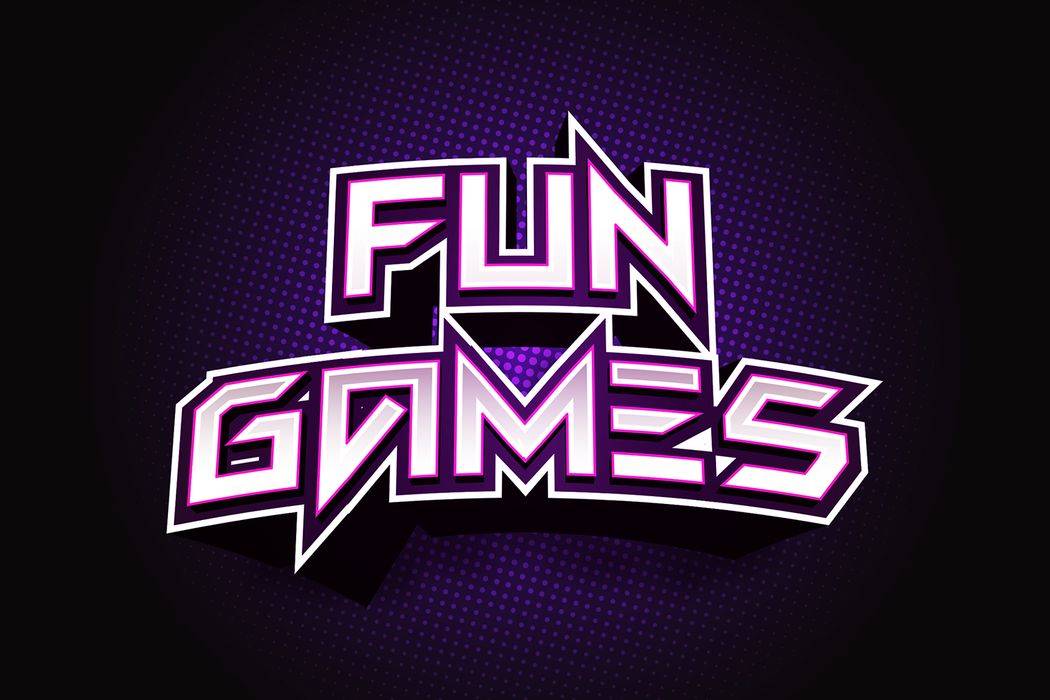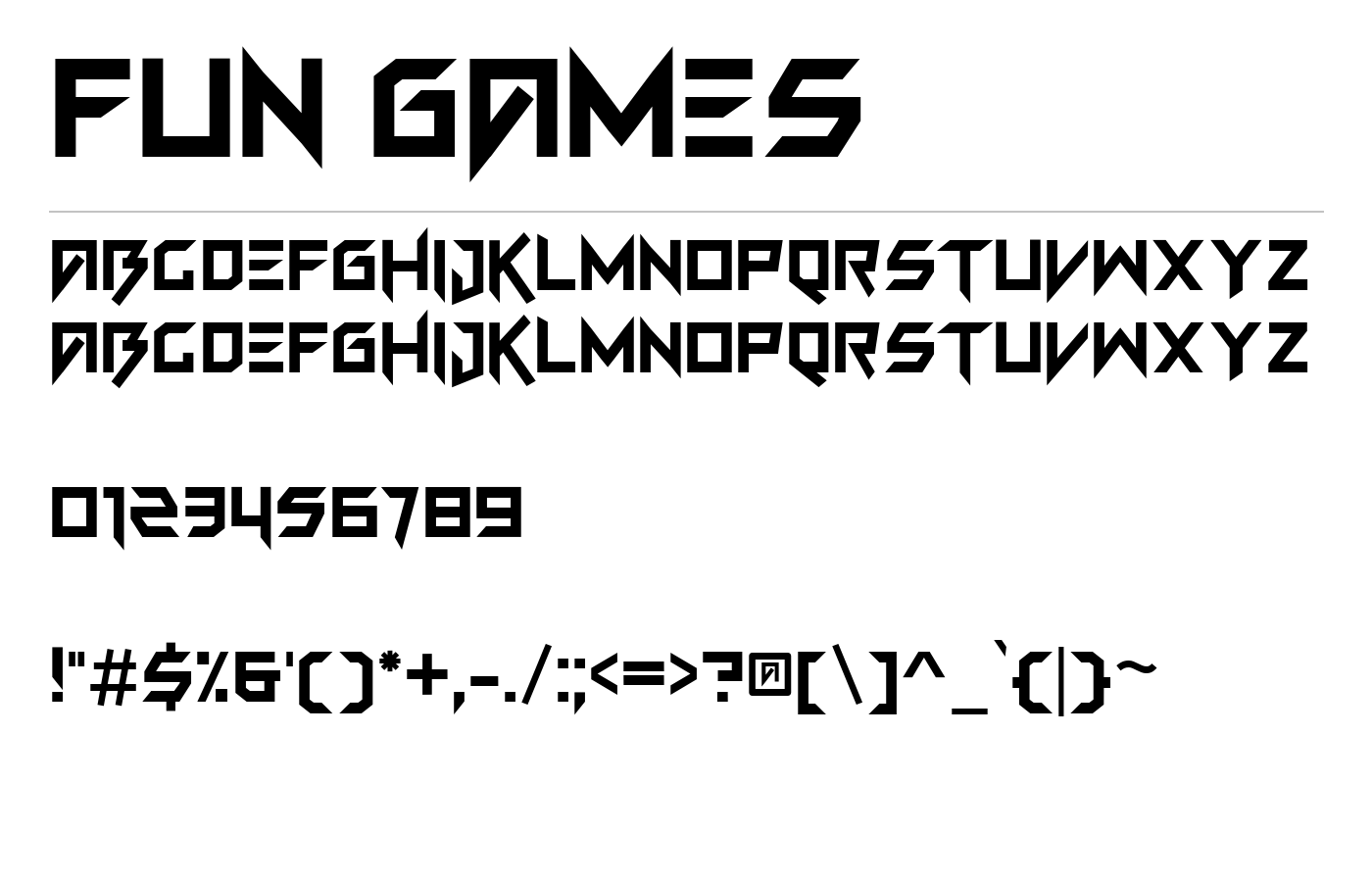
Fun Games Font is a bold, futuristic sans serif typeface characterized by sharp, angular edges and dynamic geometric shapes that evoke a playful yet tech-inspired vibe. Its strong, condensed letterforms and distinctive cuts make it well-suited for eye-catching headlines, logos, and video game branding, where a modern and energetic feel is desired. This font brings a sense of excitement and innovation, perfect for creative projects in entertainment and digital media.
Fun Games Font
About Fun Games Font